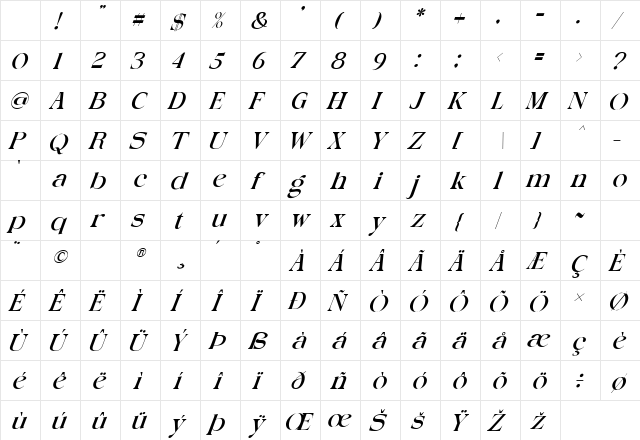
Cralika is a composed and adaptable typeface that performs quietly and consistently across a wide range of design contexts. The slanted form adds forward momentum and visual energy.
Pro Tip: Use Cralika for emphasis, pull quotes, and subheadings where its slanted energy can add rhythm to the layout.